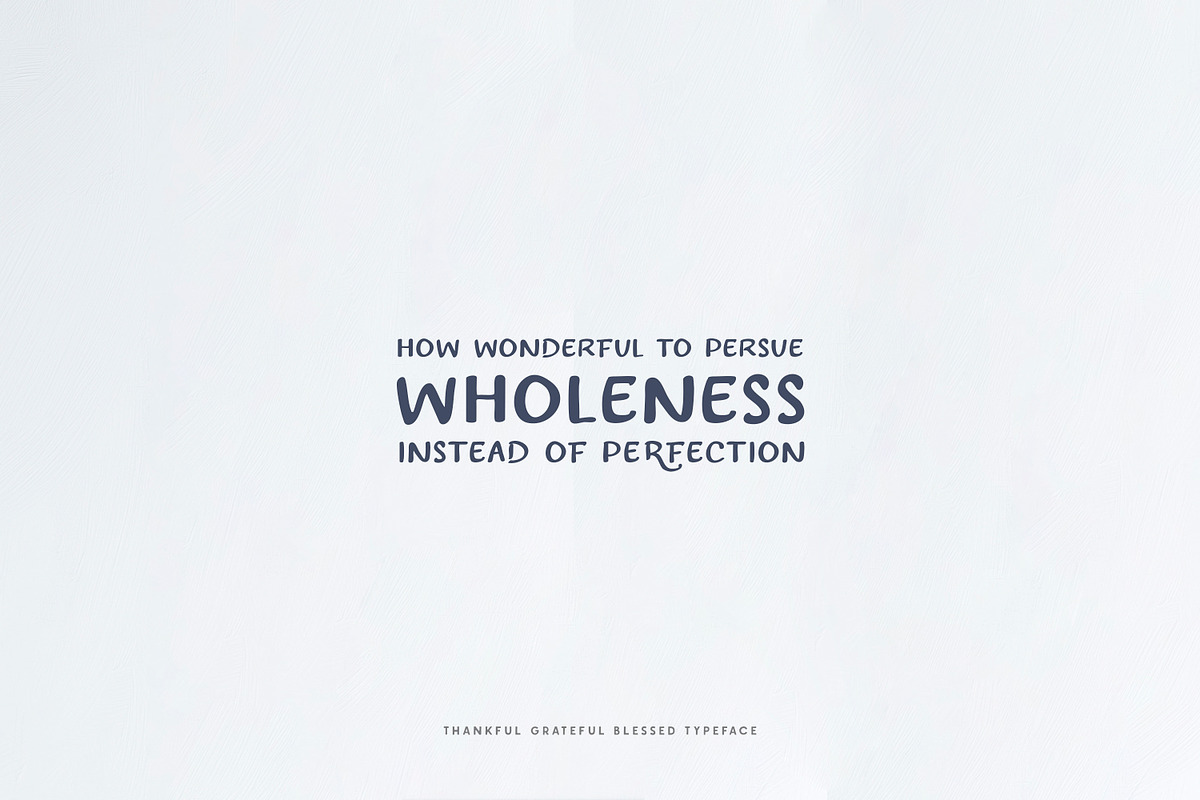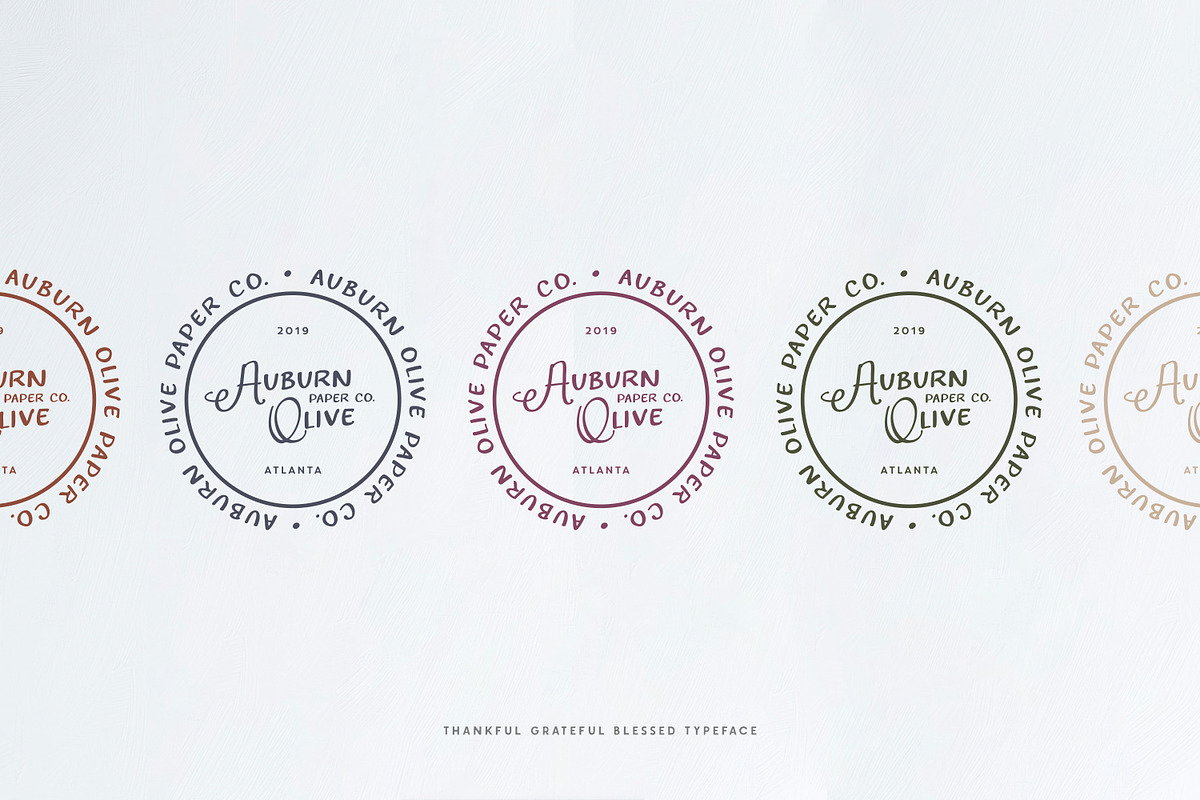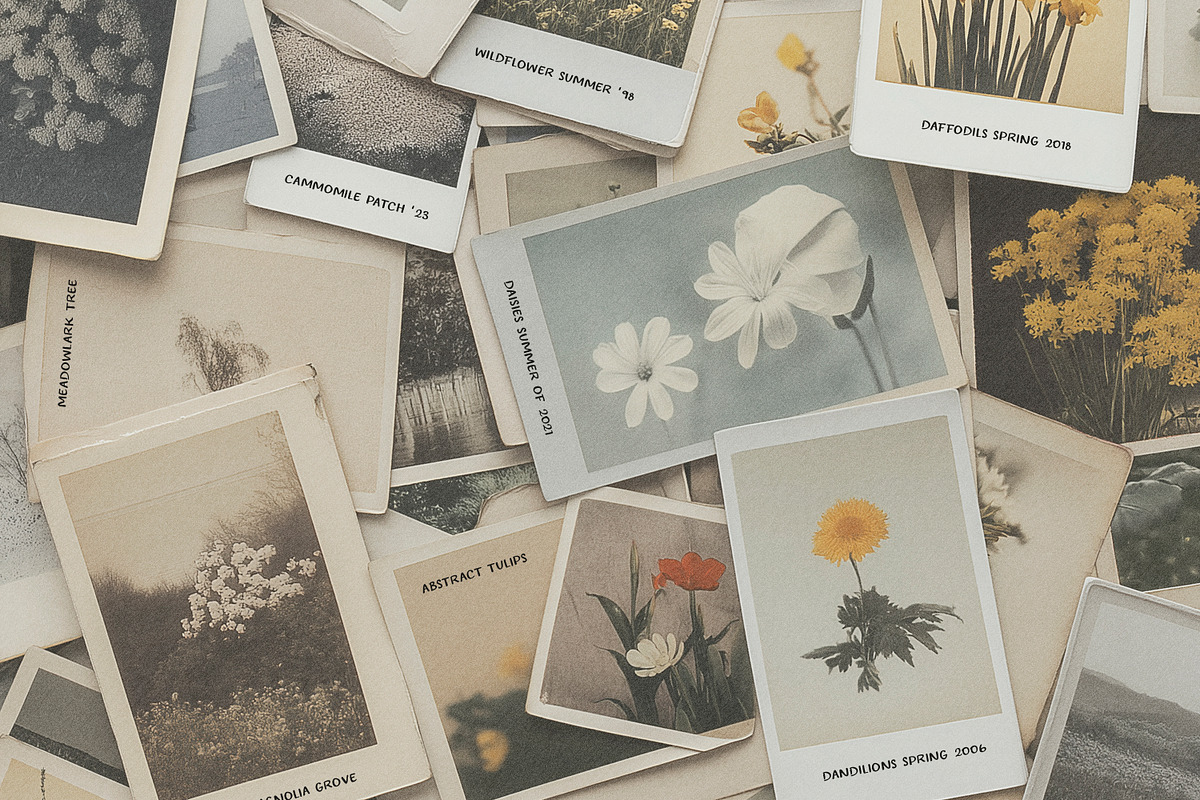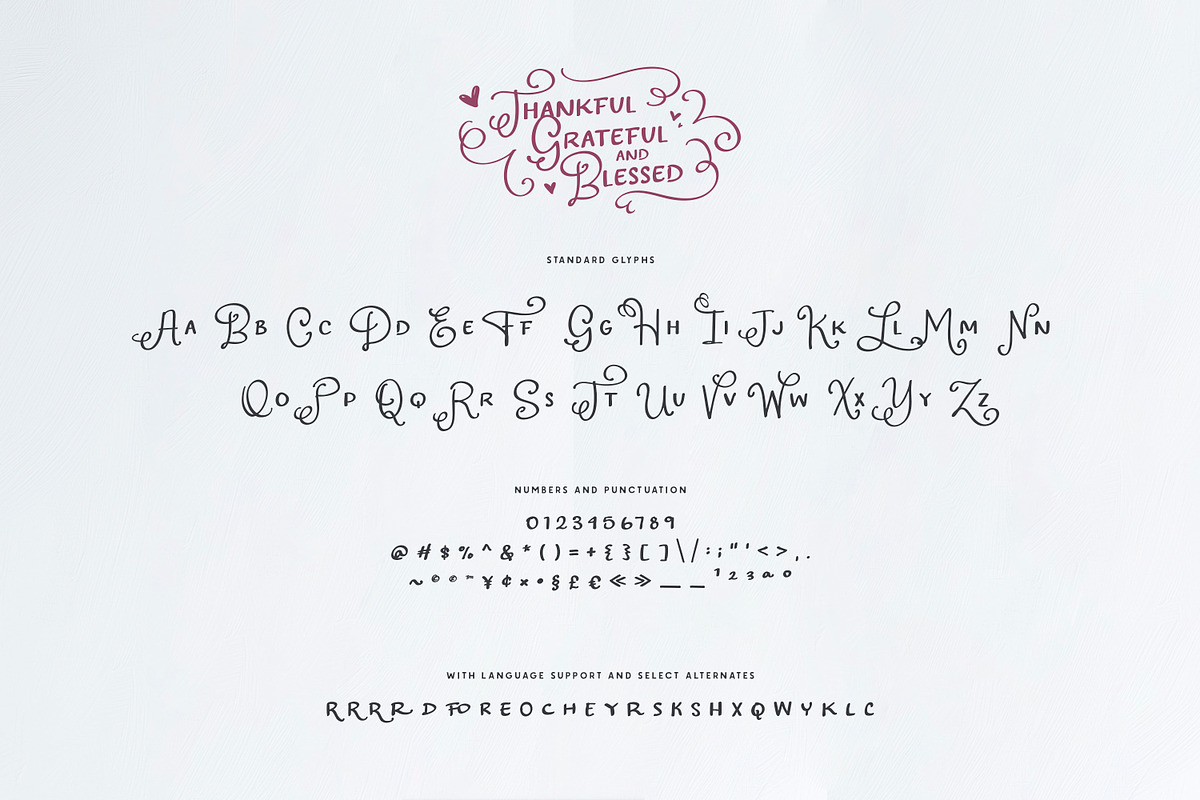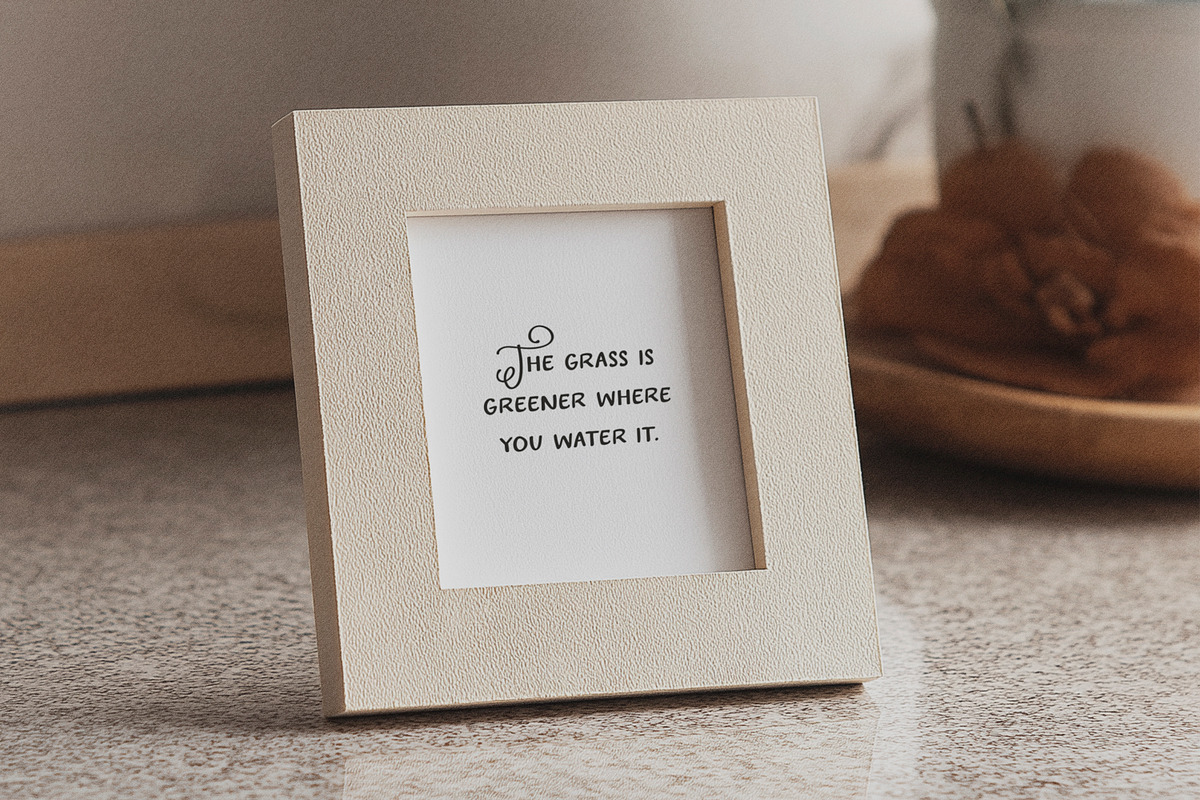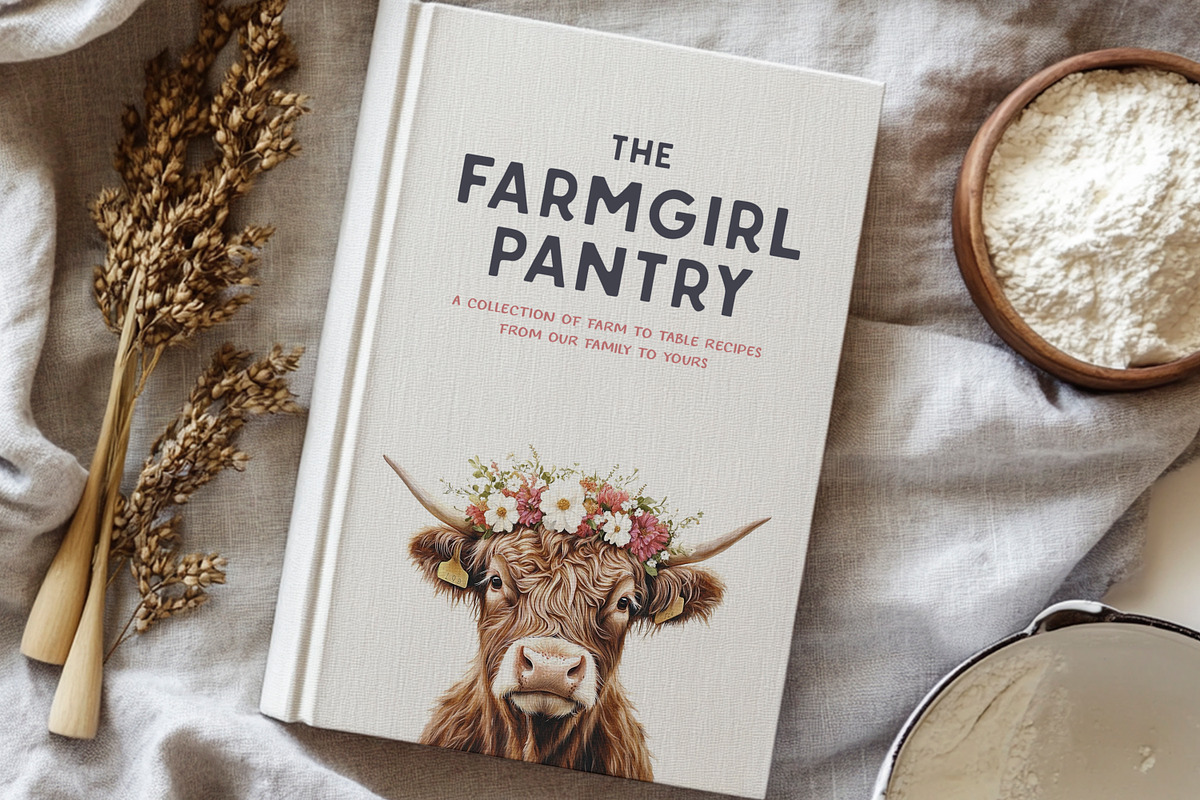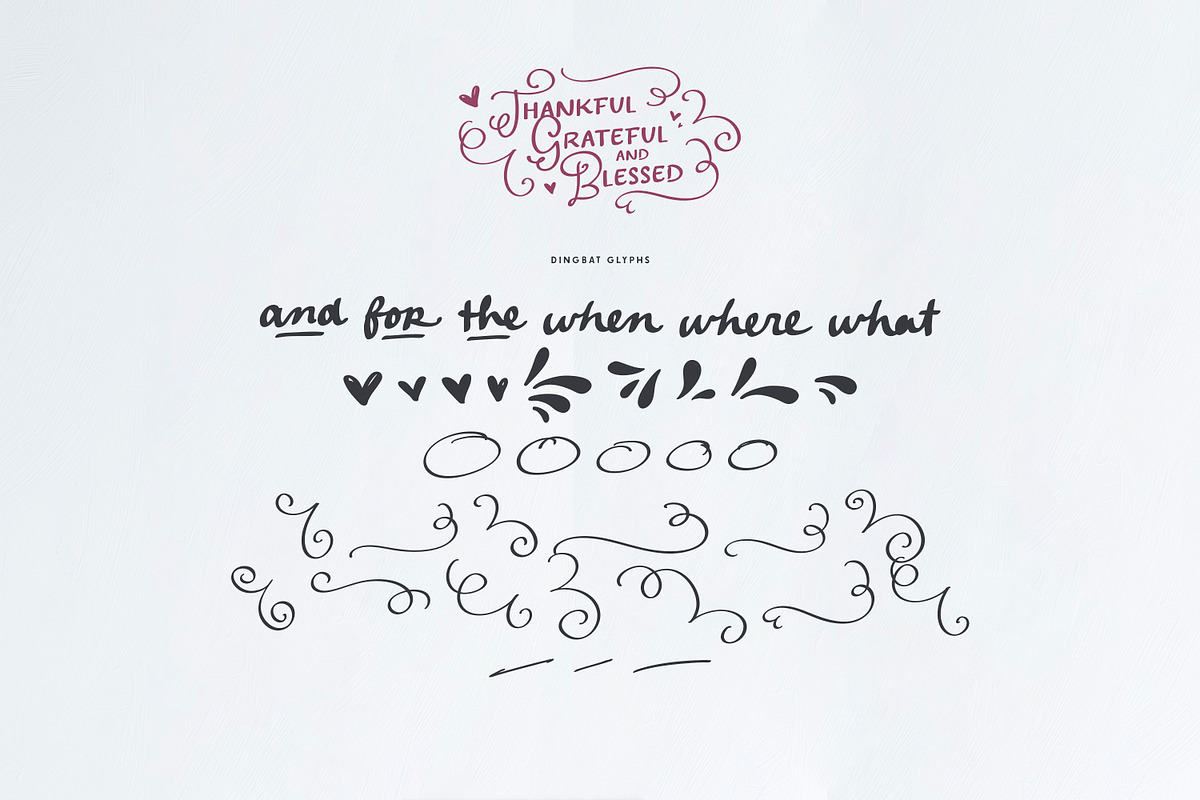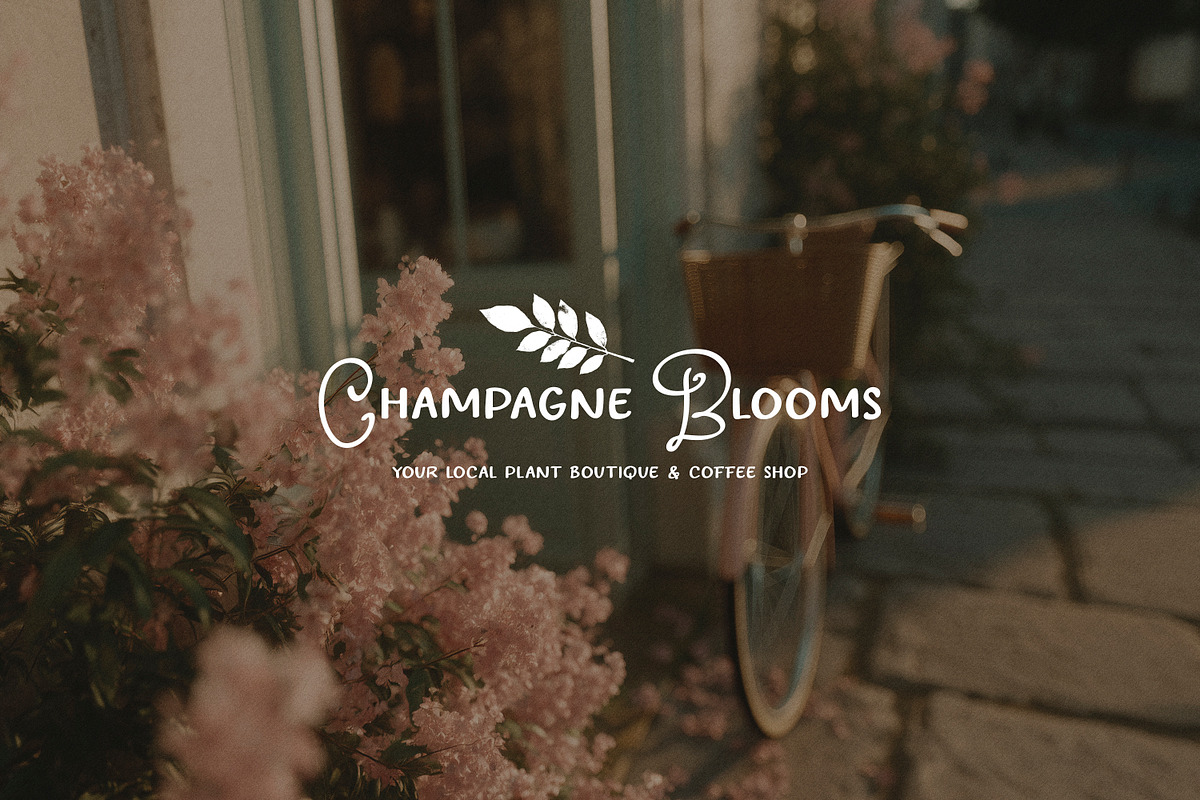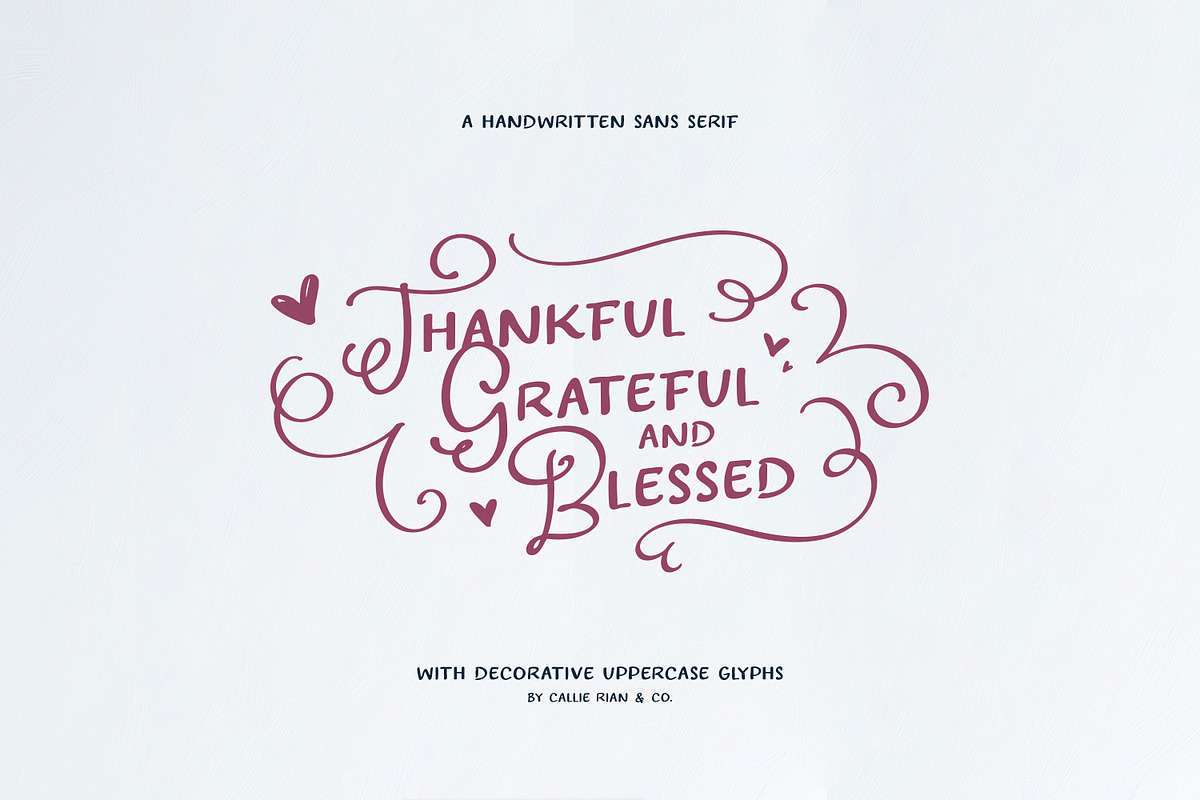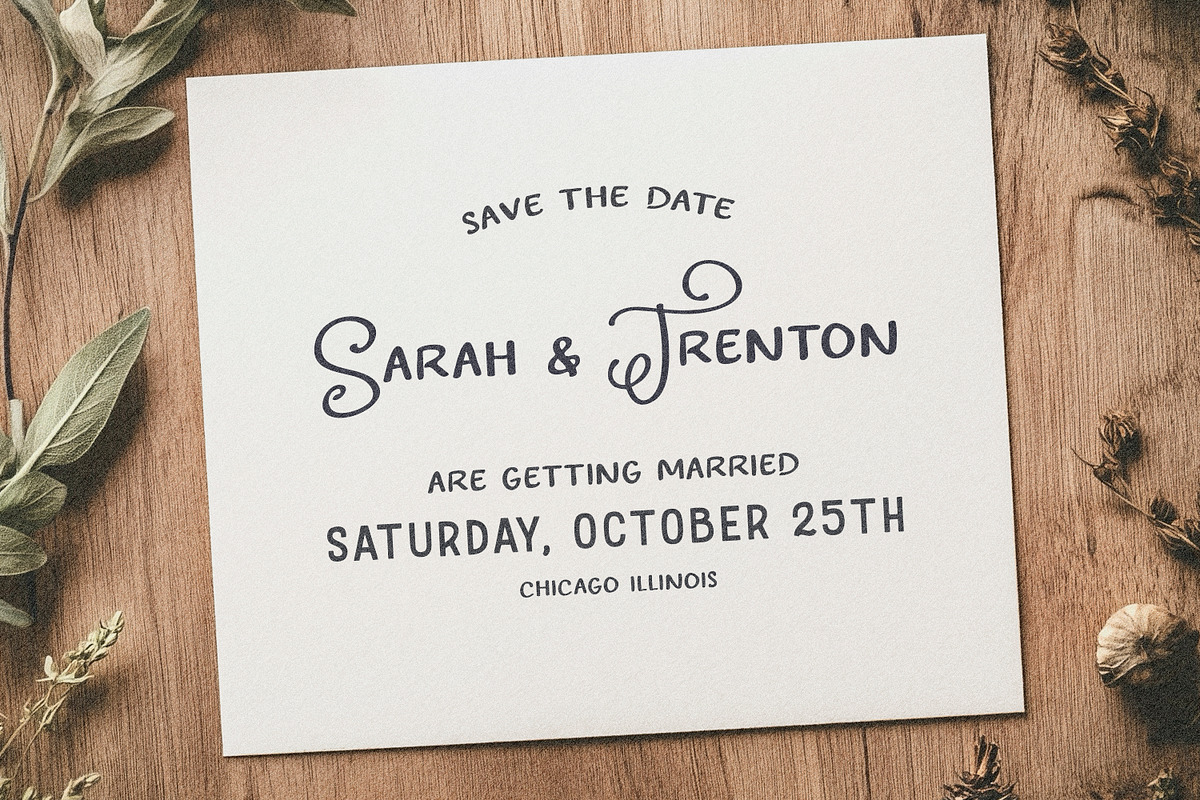
Thankful, Grateful & Blessed Type
Introducing Thankful, Grateful & Blessed! This cute dual purpose font can be fancy with decorative uppercase glyphs, or simple and legible with a set of all-caps lowercase glyphs. Use on wedding invitations, Save The Date cards, packaging, logos, quotes and more!